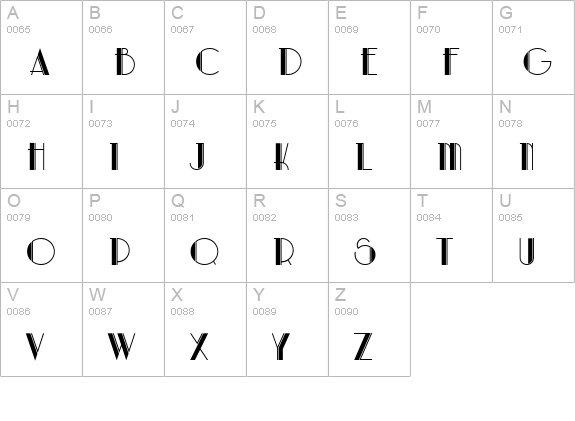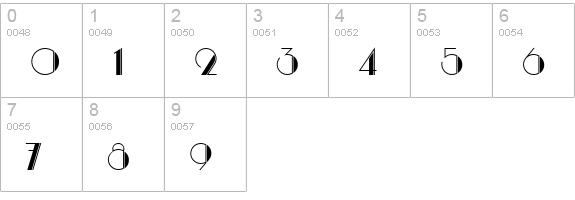
Artdeco MN Font Details
Artdeco MN font is a stunning display typeface that exudes elegance and sophistication. Its sharp, geometric lines and Art Deco-inspired design make it perfect for adding a touch of vintage glamour to your projects. The font features a unique blend of modern and classic elements, making it versatile for a wide range of design applications. What's even better is that Artdeco MN font is available for free download at FontsMarket.com! This means you can easily access this beautiful typeface to elevate your designs without any cost. Whether you're working on branding, posters, invitations, or any other creative project, Artdeco MN font is sure to make a statement with its timeless appeal and distinctive style. Don't miss out on the opportunity to enhance your designs with this exquisite font. Download Artdeco MN today and let its charm and sophistication shine in your work!